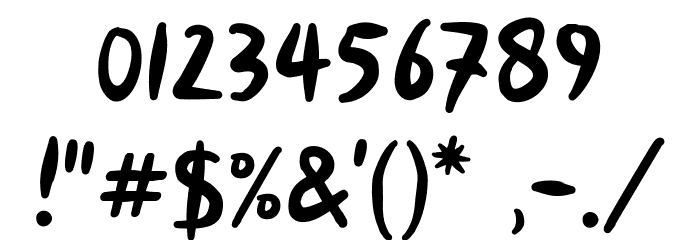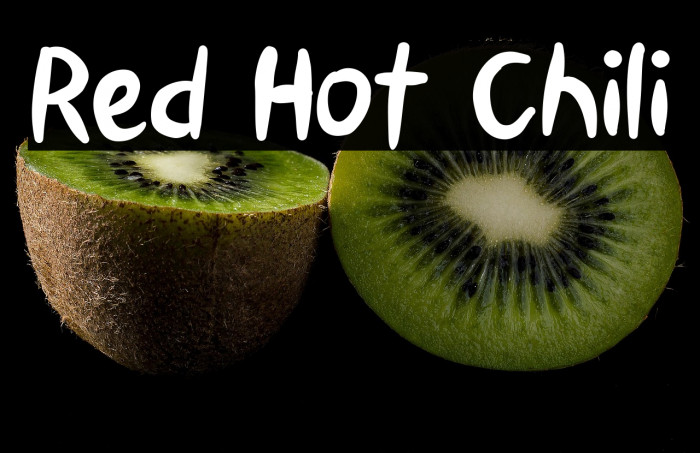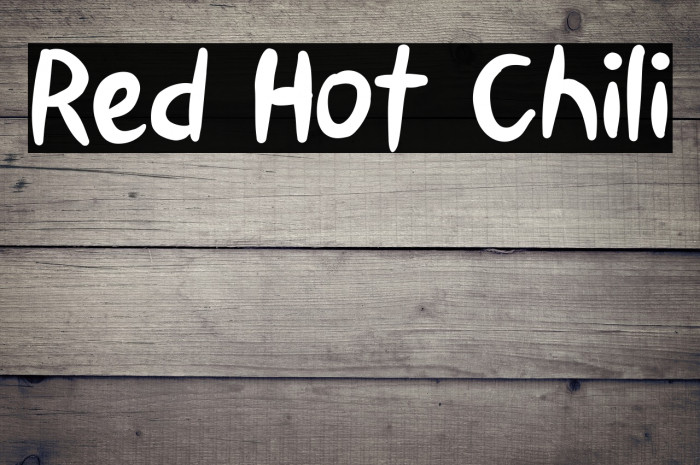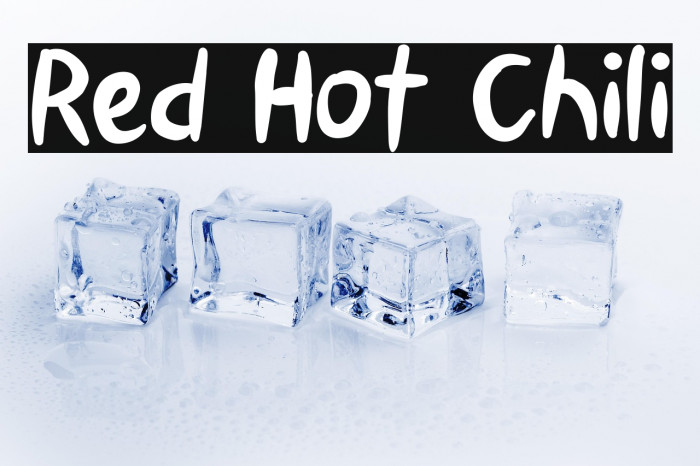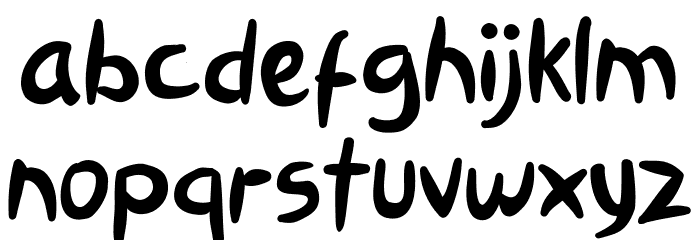
Red Hot Chili Font
Red Hot Chili Description
This font exudes a playful and energetic vibe, characterized by its bold and rounded letterforms. The strokes are consistent in width, giving it a uniform appearance, while the slightly irregular shapes add a hand-drawn, casual feel. The uppercase and lowercase letters maintain a cohesive style, with rounded edges and a slight slant that enhances its dynamic look. The numerals and special characters follow the same design principles, ensuring a harmonious overall appearance. This font is ideal for projects that require a fun and approachable aesthetic.